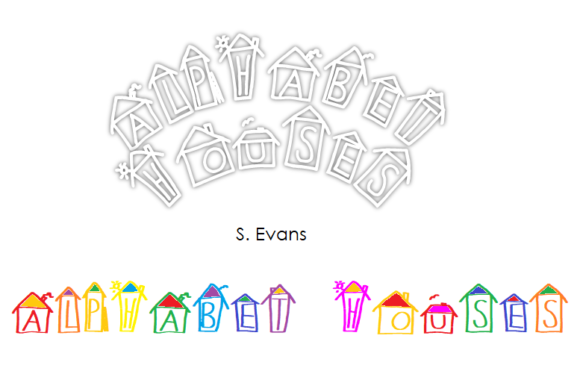
The Ultimate Guide to Alphabet Houses Font: Adding Colour and Fun to Your Designs
I’ll never forget the time I was working on a children’s book project, and my client asked me to create a custom font that would make the story come alive. I spent hours scouring the internet for the perfect font, but nothing seemed quite right. That’s when I stumbled upon Alphabet Houses Font, and it was love at first sight! 🎉
This fun, playful, and childlike font has been a game-changer for my designs, and I’m excited to share my experience with you. In this article, we’ll dive into the world of Alphabet Houses Font, exploring its features, how to use it, and some amazing alternatives.
An Honest Review of Alphabet Houses Font
So, what makes Alphabet Houses Font so special? Let’s take a closer look.
- ✨ Unique and playful character designs that add a touch of whimsy to any project
- 🎨 Extensive range of colours and OpenType features to experiment with
- 🌈 Perfect for designs that require a childlike or hand-drawn feel
While Alphabet Houses Font is an amazing addition to any design project, there are a few things to keep in mind:
- 🤔 Some characters may not work well in all languages or scripts
- ⚠️ Limited support for certain OpenType features in older software versions
The Backstory Behind Alphabet Houses Font
While the true story behind Alphabet Houses Font remains a mystery, it’s easy to imagine that it was created by a designer who loves to bring joy and colour to the world through typography. Perhaps the designer was inspired by childhood memories of playing with alphabet blocks or creating art with colourful markers.
Q: Does Alphabet Houses Font support OpenType features?
A: Yes, Alphabet Houses Font supports a range of OpenType features, including glyphs, stylistic alternates, and colour fonts.